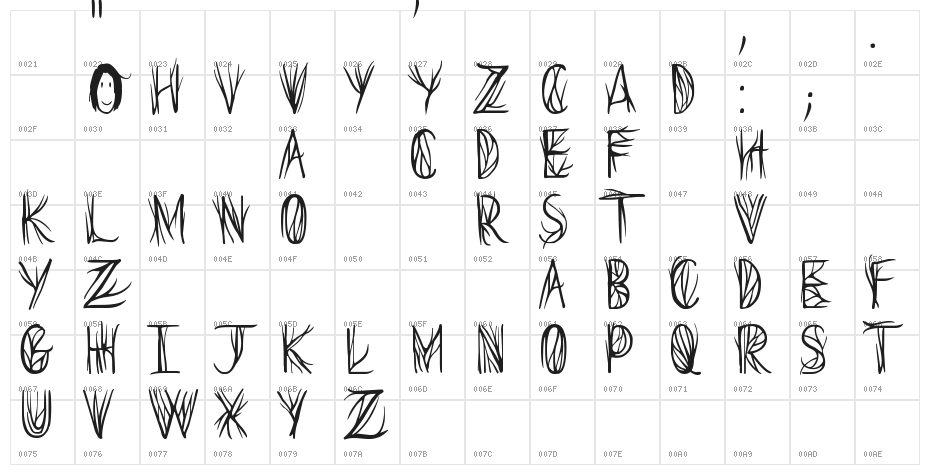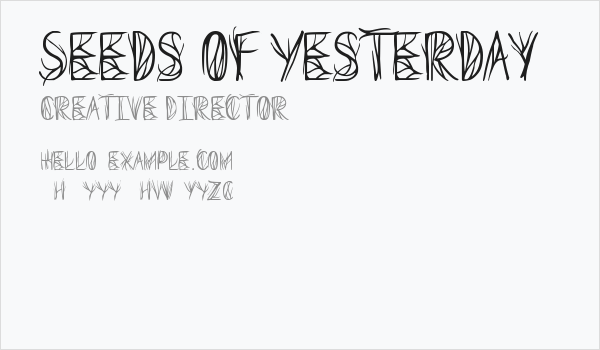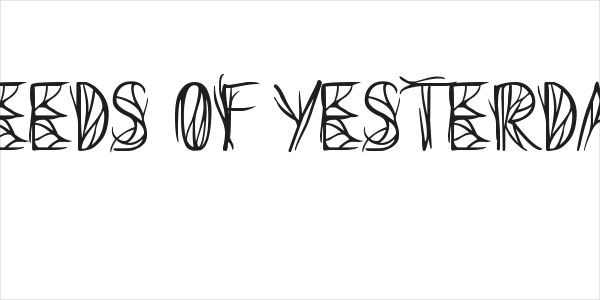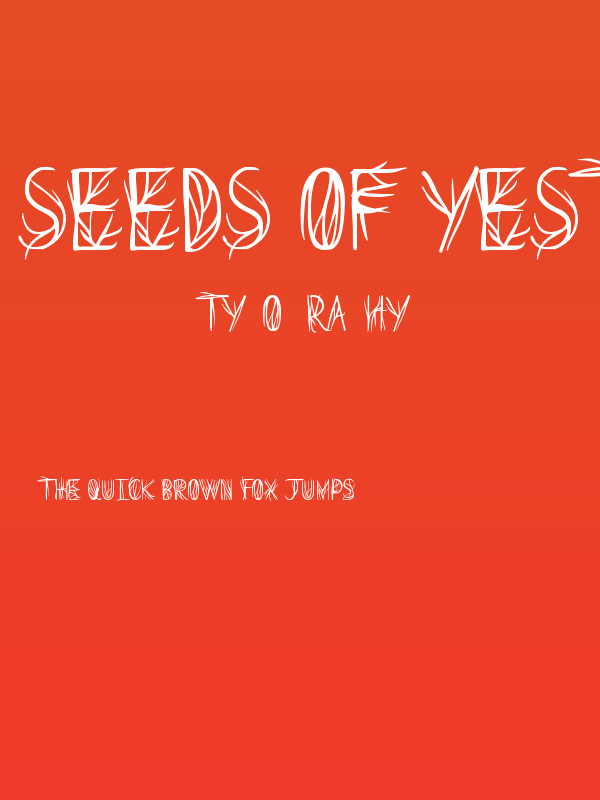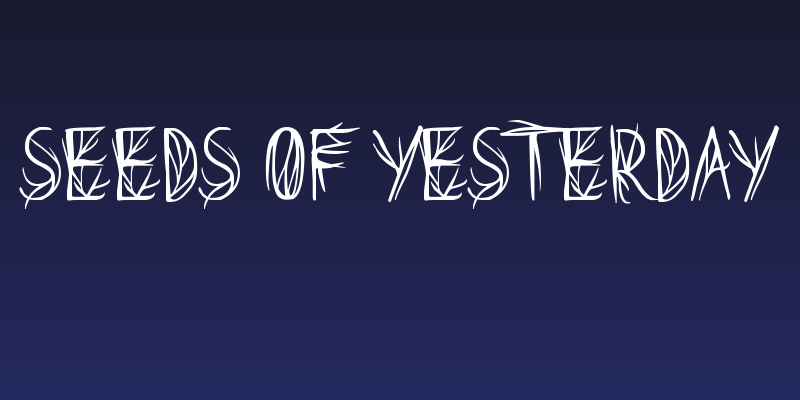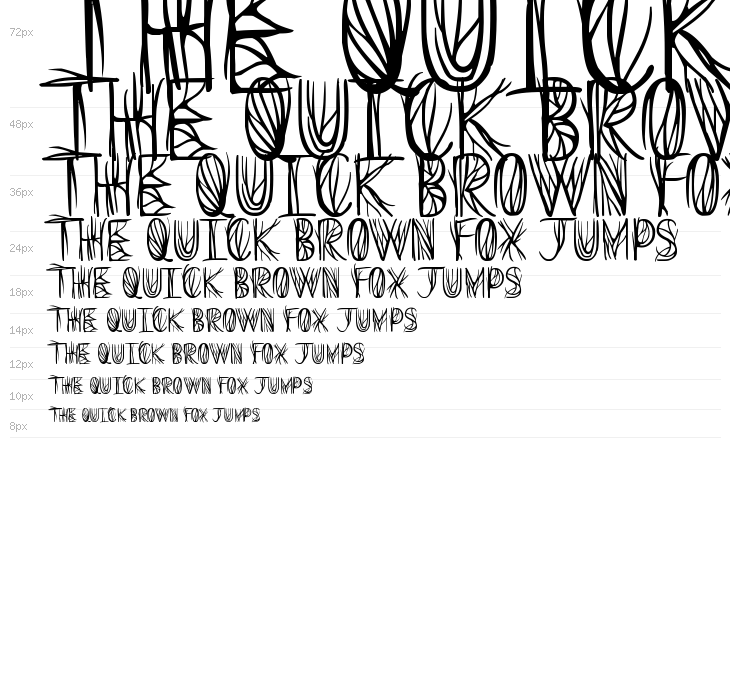
Seeds of Yesterday Font
Seeds of Yesterday Description
This font features a highly decorative and artistic style, characterized by its hand-drawn appearance with exaggerated strokes and whimsical elements. Each letter is unique, with varying line thicknesses and playful curves, giving it a dynamic and lively feel. The uppercase letters are particularly bold and expressive, while the lowercase letters maintain a consistent yet quirky design. The numbers and special characters follow the same artistic theme, making the font suitable for creative and unconventional projects. Its distinct style makes it stand out, adding a touch of personality and flair to any design.
| Proposed Projects | Ideal for artistic projects, children's book covers, creative posters, and unique branding materials. |